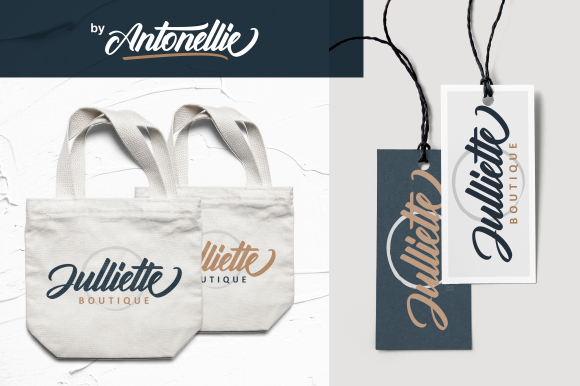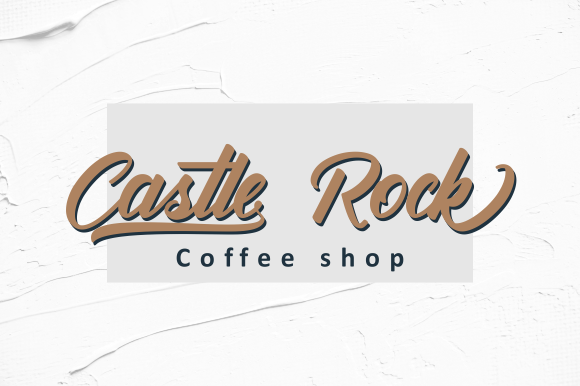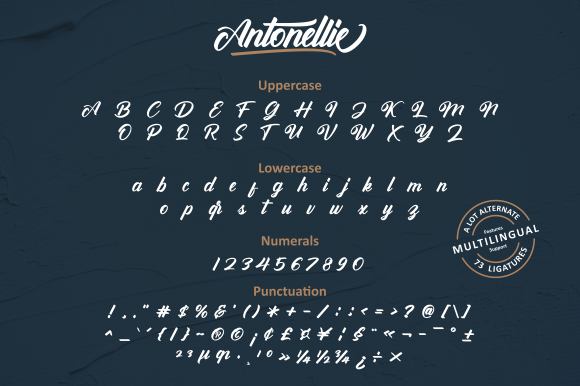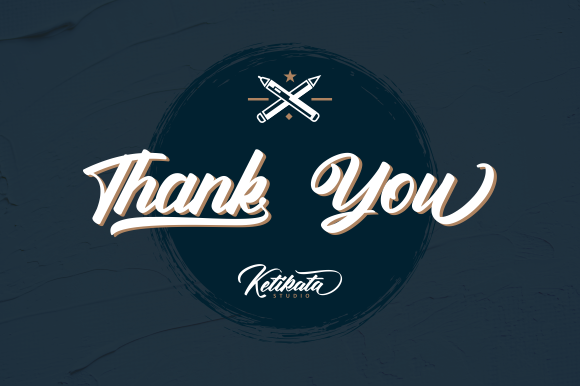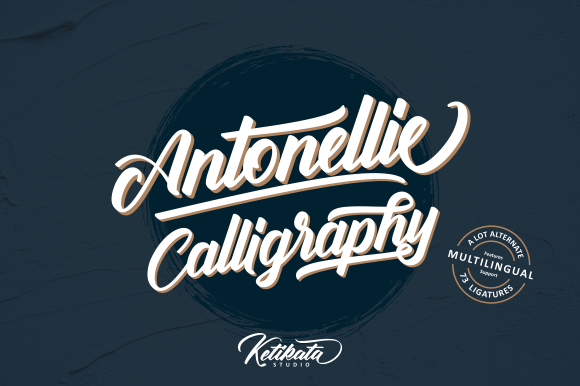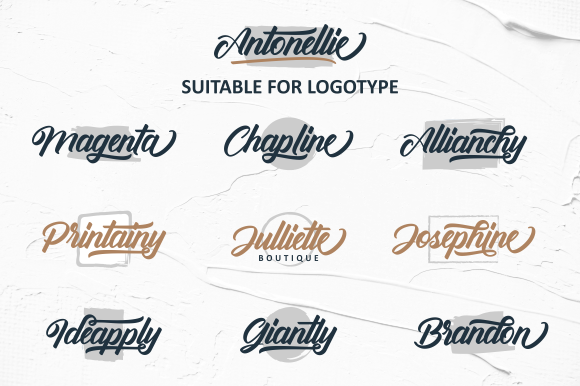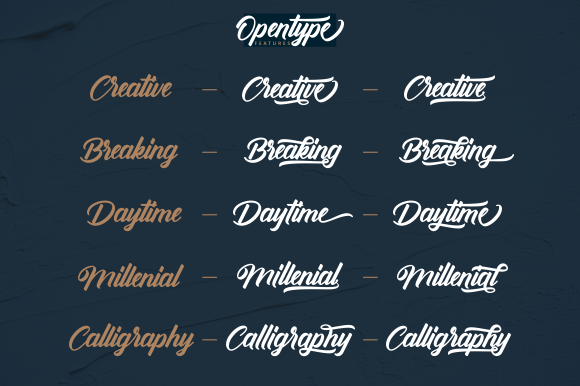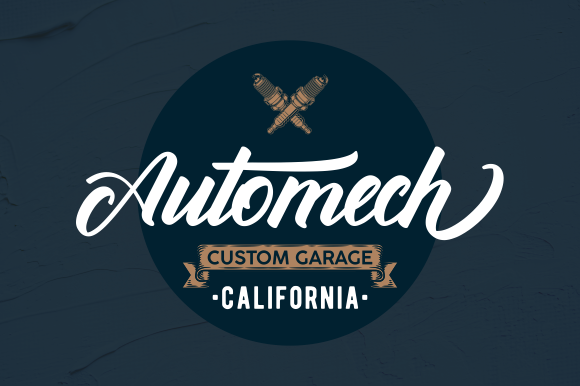
Antonellie Font
About Antonellie Font
The Antonellie is a strong and bold script font, carefully crafted with hand lettering. It contains many stylistic alternates and swashes that will help you to create your own customized design.
It’s perfect to add an unique touch to your quotes, merchandise, packaging, business cards and much more!